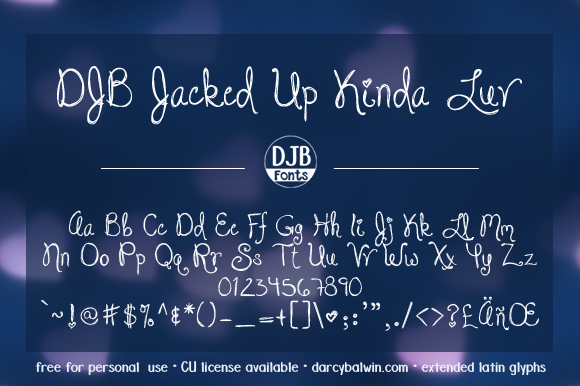
Preview and download DJB Jacked Up Kinda Luv Font. Created by Darcy Baldwin in Fancy Curly styles with Free for personal use license.
This is a free for personal-use(not-for-profit) font, made in conjunction with Lauren Grier. This font is free for personal use only. Any commercial use such as logos, web design, product sales, embroidery font end-sales, books, apps, etc. require a commercial use license available here: http://darcybaldwin.com/commercial-use DJB Jacked Up Kinda Luv is made in conjunction with Lauren Grier. It's a scribbled, decorative font for marketing, logos and more. This font contains 1 .ttf/.otf font file, which includes full alphabet, numbers and most common punctuation as well as extended Latin glyphs. See product view for details. UPDATED 9/2016 with additional composite glyphs and kerning corrections. If you'd like to purchase it for commercial use, please purchase a license at: http://darcybaldwin.com/commercial-use/ https://www.facebook.com/DarcyBaldwinFonts/ Complete dafont catalog: http://www.dafont.com/darcy-baldwin.d1819 |